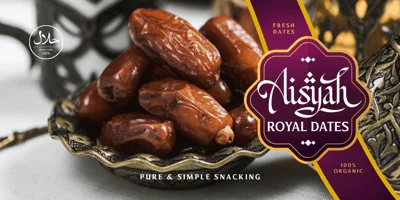
Mustopha Font is perfect for Middle Eastern restaurant branding, Islamic cultural center signage, Arabic calligraphy workshops, Ottoman-inspired design projects, mosque educational materials, halal food packaging, Middle Eastern spice shop labels, traditional Turkish coffee house menus, Islamic art gallery displays, and any project requiring authentic Arabic elegance with traditional Middle Eastern sophistication and cultural heritage beauty.
What makes Mustopha Font exciting is its authentic Arabic elegance and Middle Eastern cultural richness that embodies the sophisticated artistry of Islamic calligraphy and the timeless beauty of Ottoman design traditions. The typeface features flowing, calligraphic letterforms with traditional flourishes and cultural details that evoke the spiritual depth of Arabic manuscripts and the artistic excellence of Middle Eastern craftsmanship. Its heritage character design speaks to audiences who appreciate cultural authenticity, spiritual beauty, and the profound artistic traditions of Islamic civilization, making it perfect for cultural brands seeking to communicate respect, tradition, and the magnificent legacy of Arabic calligraphy and Middle Eastern cultural heritage.
Mustopha Font family includes regular, medium, and bold weights with complete character sets featuring uppercase and lowercase letters, Arabic-inspired numerals, traditional punctuation marks, and Islamic decorative elements. The typeface incorporates authentic Middle Eastern design principles and traditional calligraphic techniques that enhance its cultural accuracy while maintaining excellent readability across all Islamic applications and Middle Eastern cultural projects.
Whether you're creating Middle Eastern cultural branding, designing Islamic educational materials, or developing Arabic-inspired marketing campaigns, Mustopha Font provides the perfect typographic foundation that honors Islamic tradition and Middle Eastern artistry. The font's cultural appeal and authentic character make it particularly effective for Middle Eastern restaurants, Islamic institutions, and cultural organizations. Its traditional aesthetics translate beautifully across mosque signage, cultural publications, and digital platforms, ensuring your brand communicates the kind of authentic Middle Eastern spirit and cultural richness that resonates with those who appreciate Islamic heritage and the timeless beauty of Arabic artistic traditions.